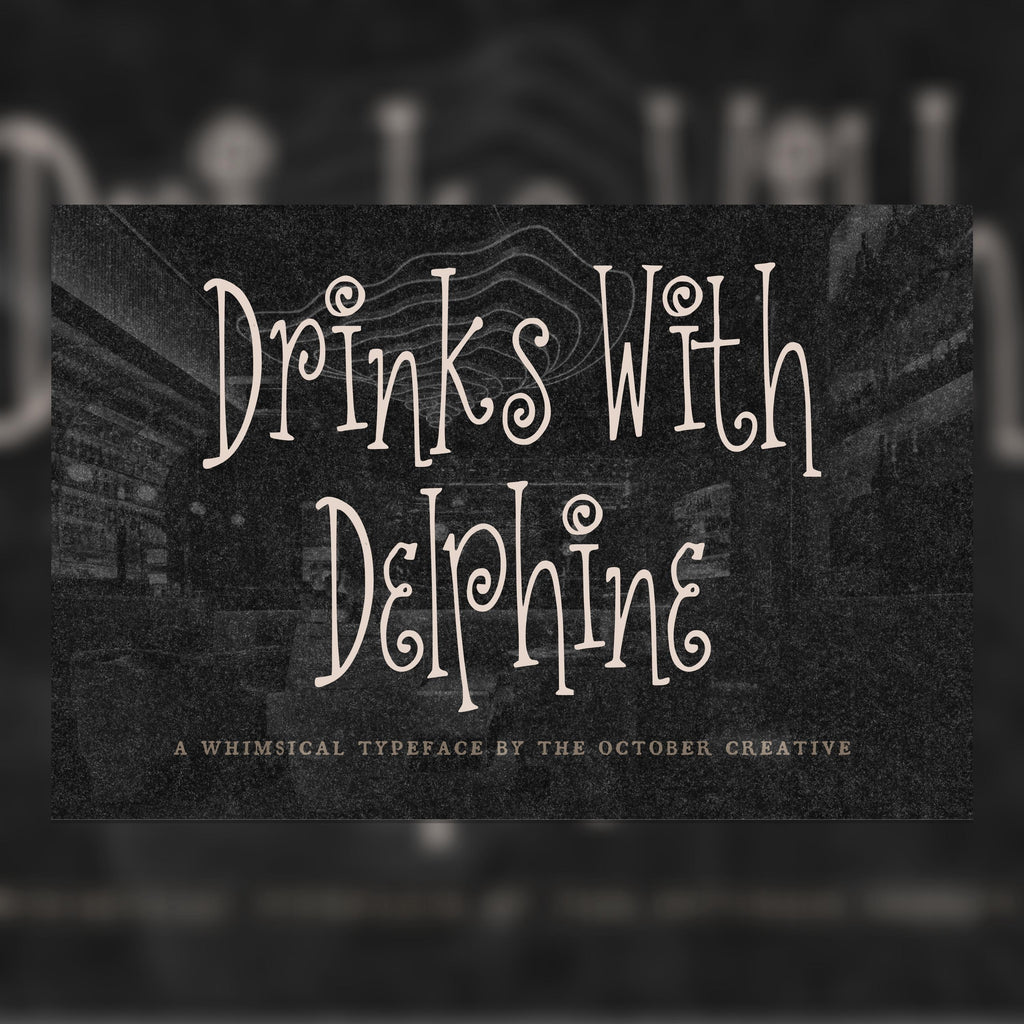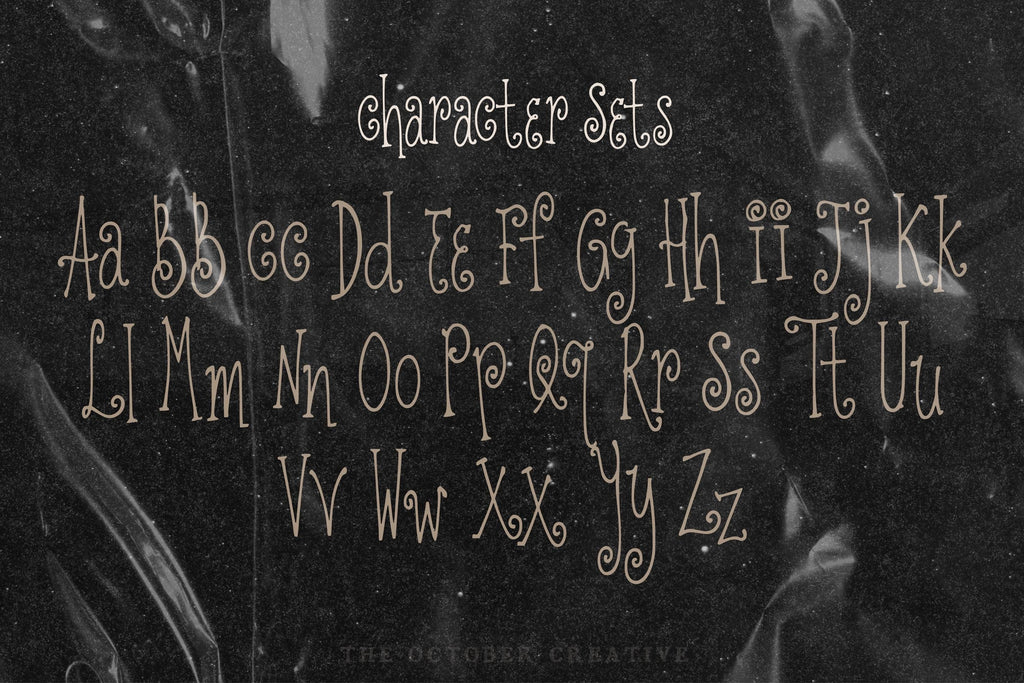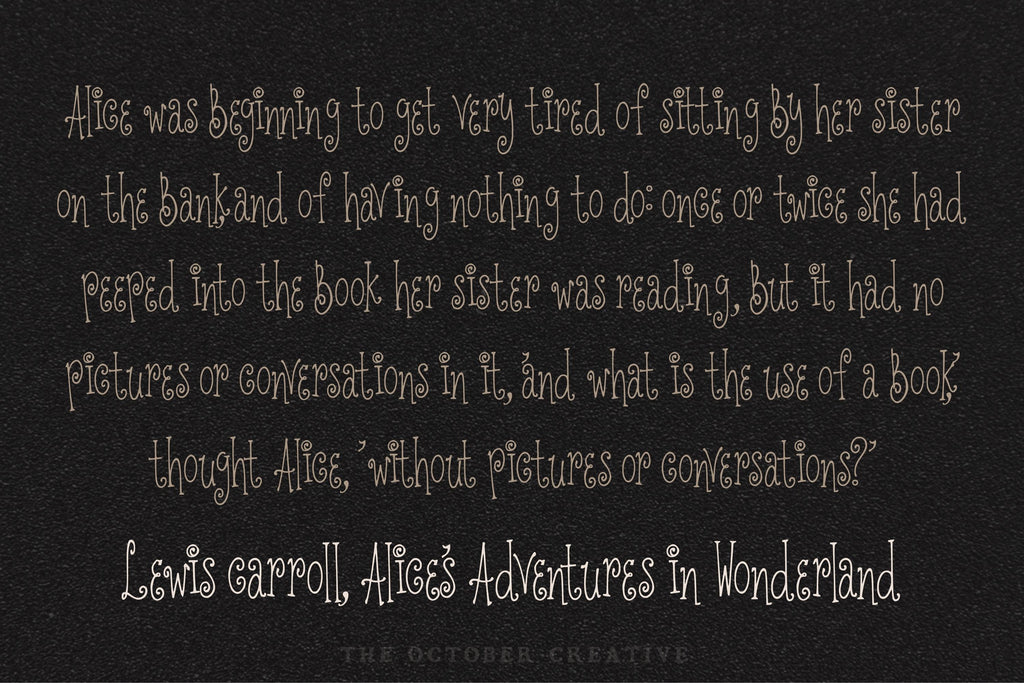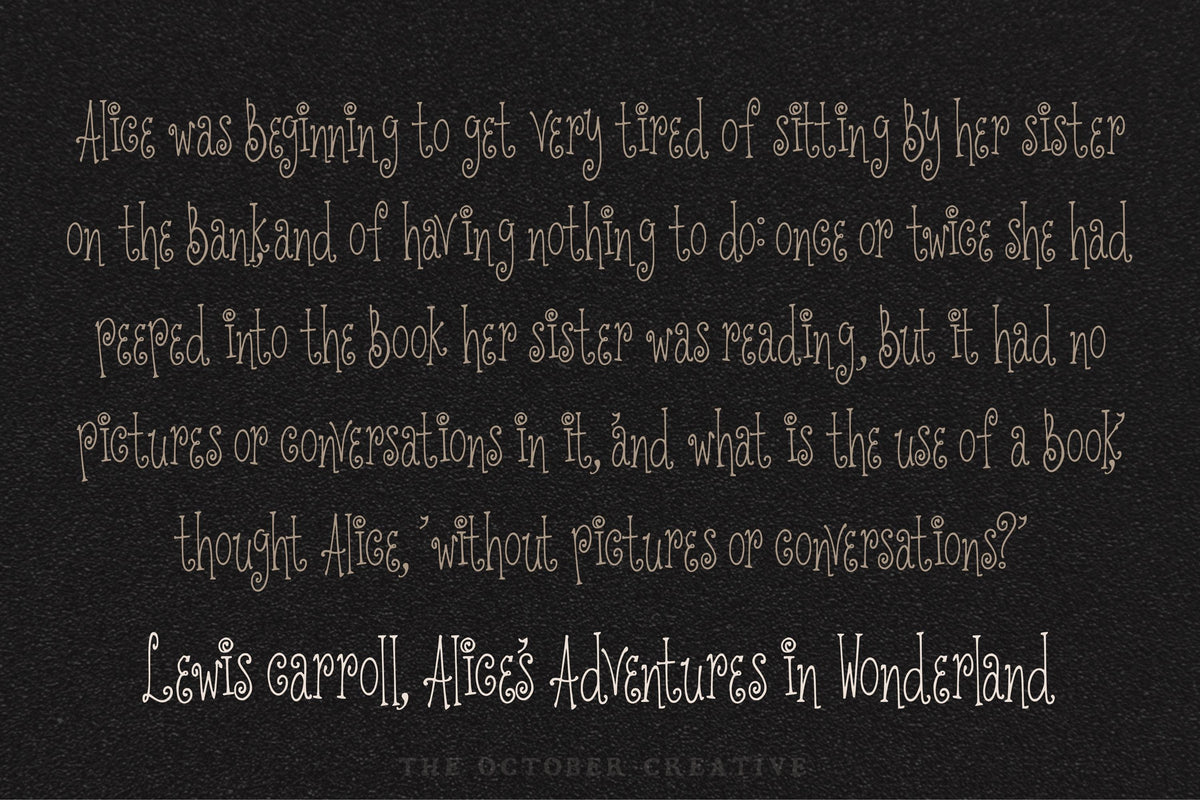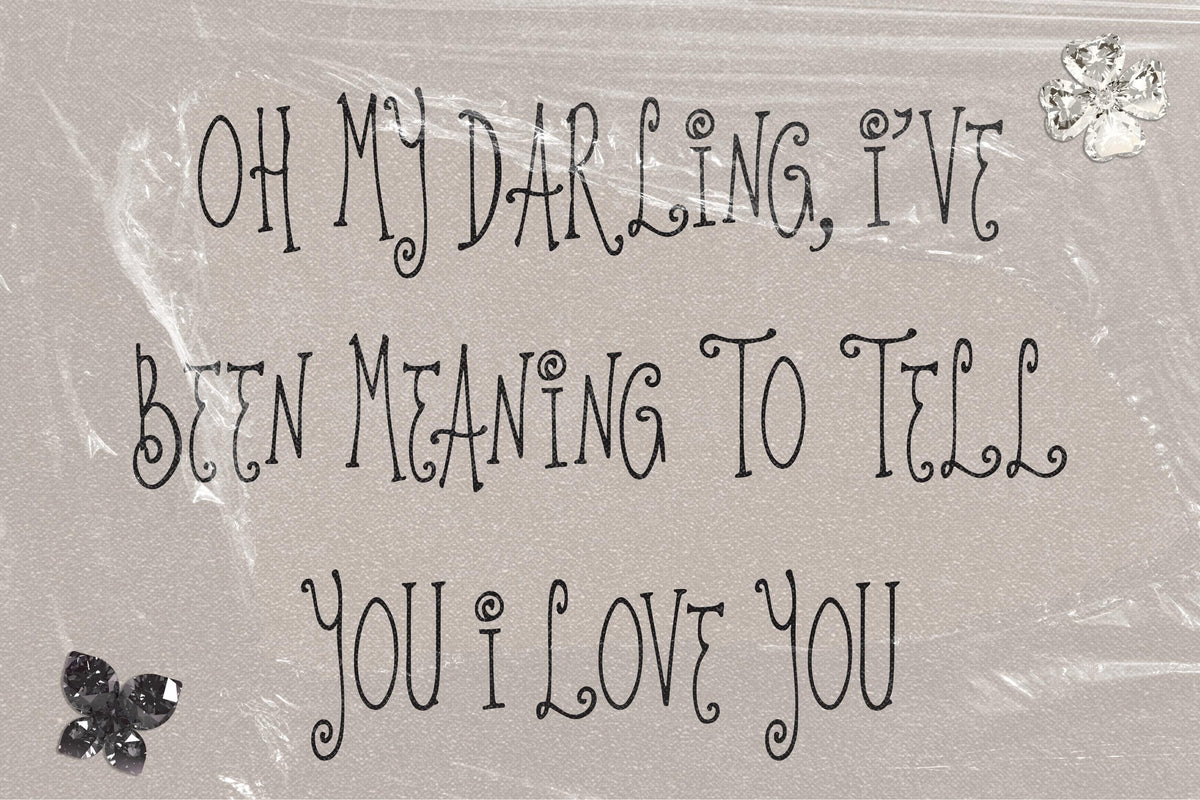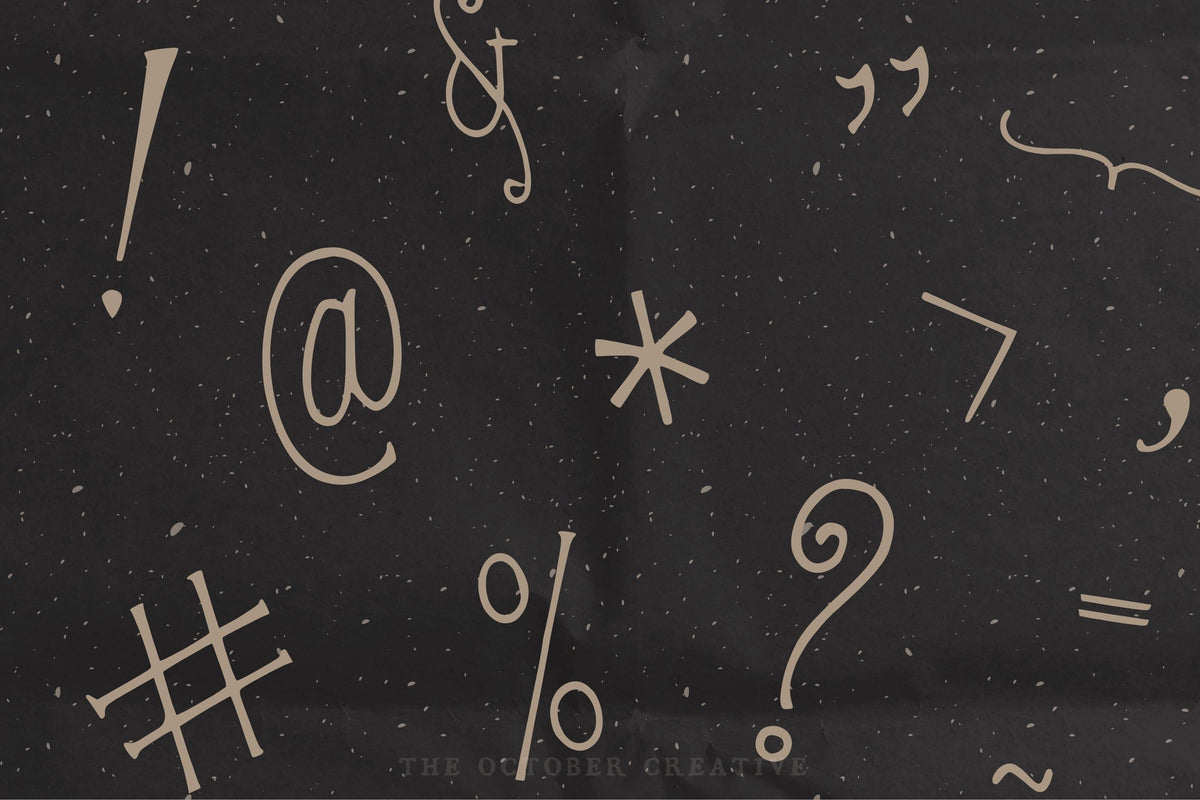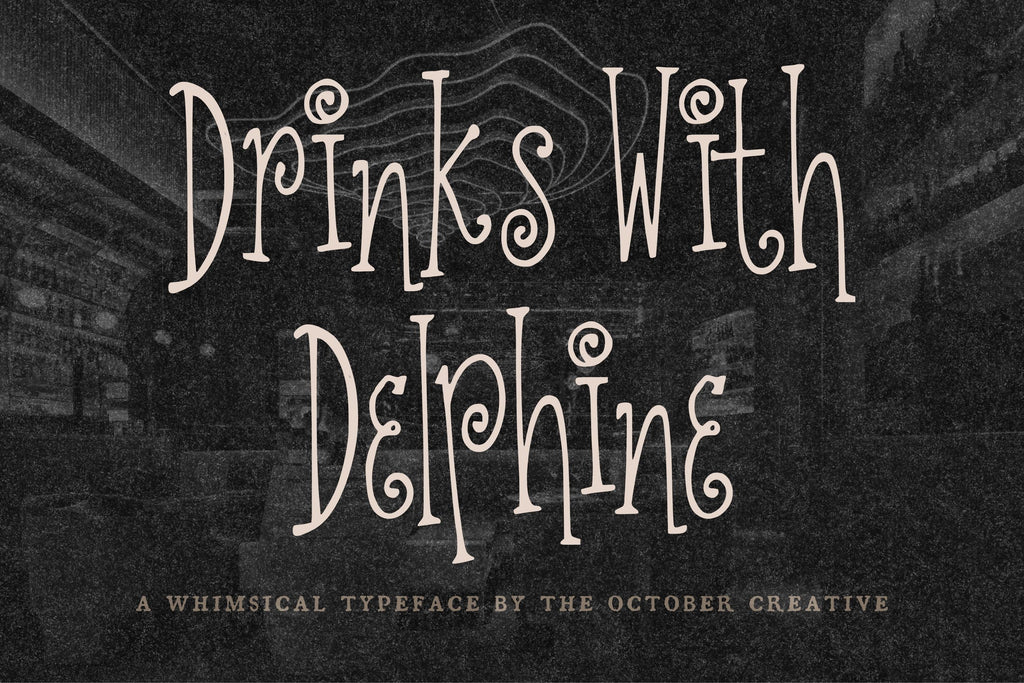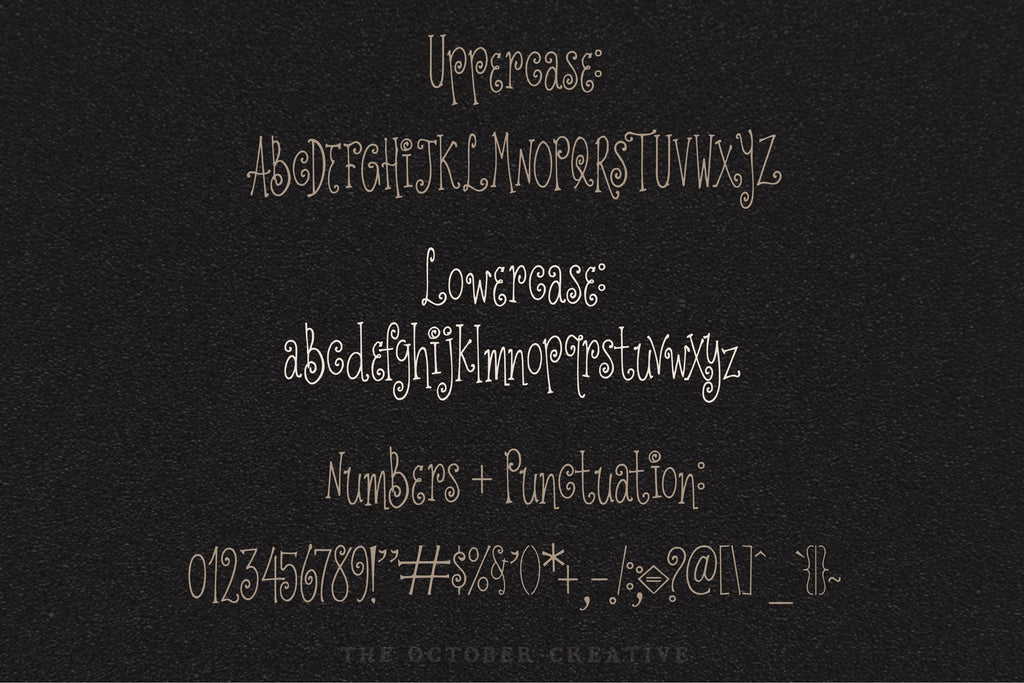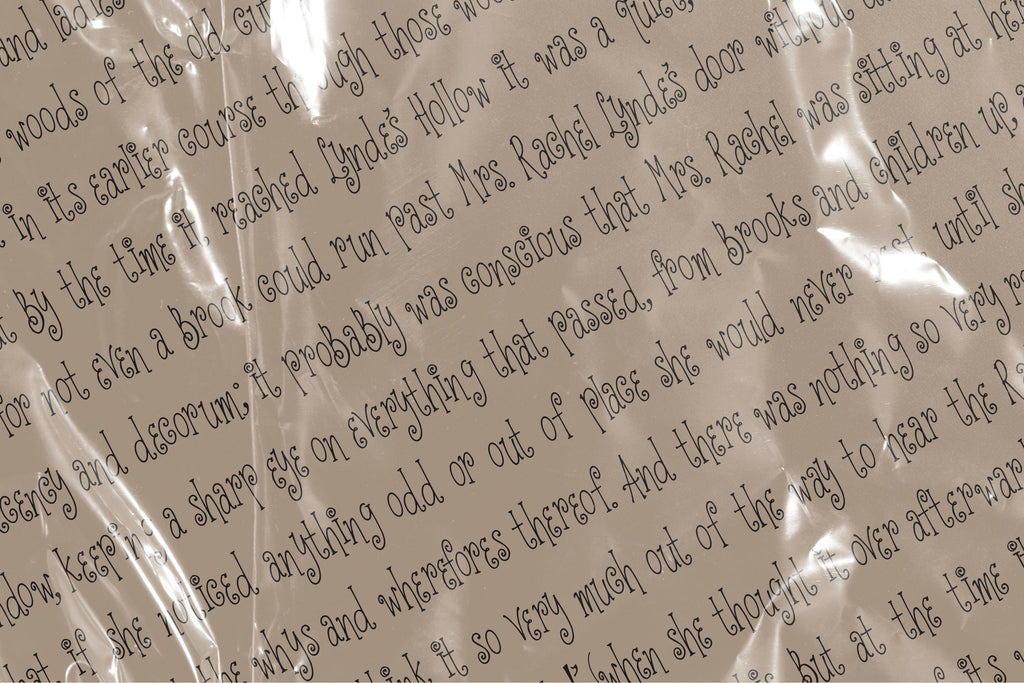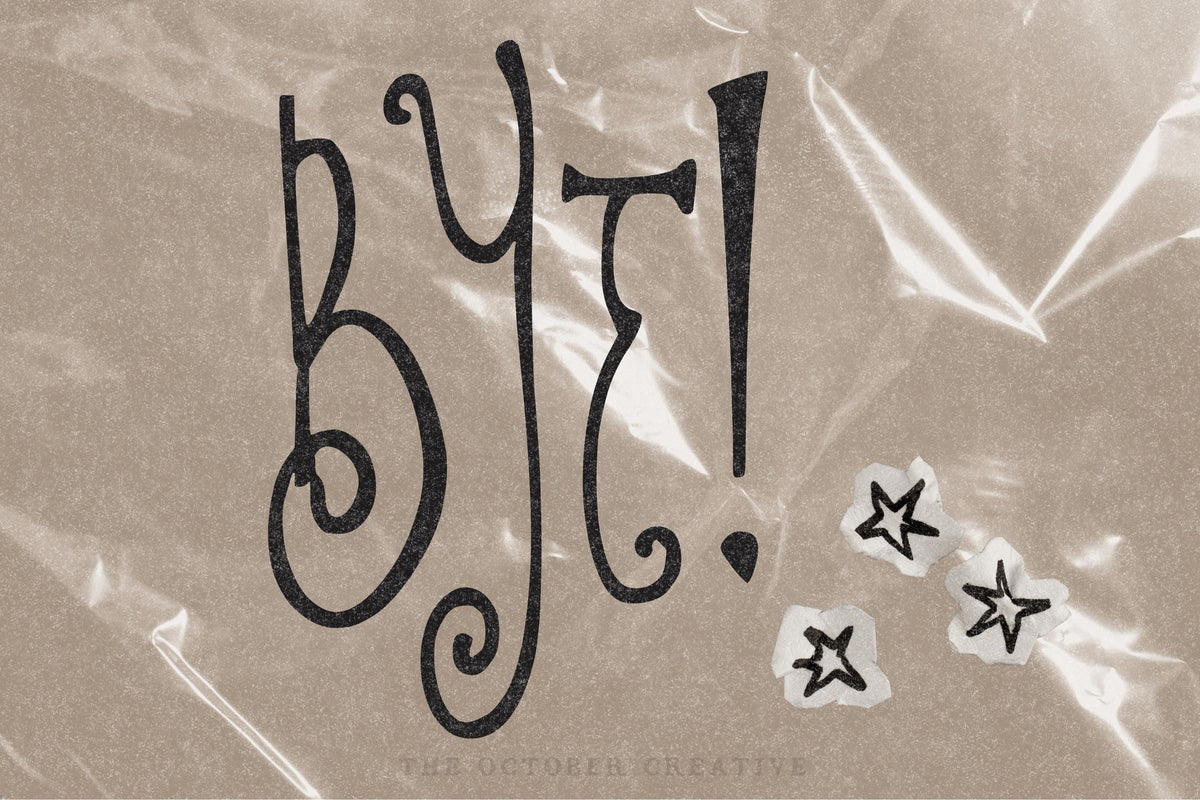
Drinks With Delphine Font
Drinks With Delphine looks lovely with a cocktail list and an excuse to dress up. Its tall, delicate letters have little curls and plenty of breathing room, making it a charming choice for drink menus, dinner invitations, and evening party details.